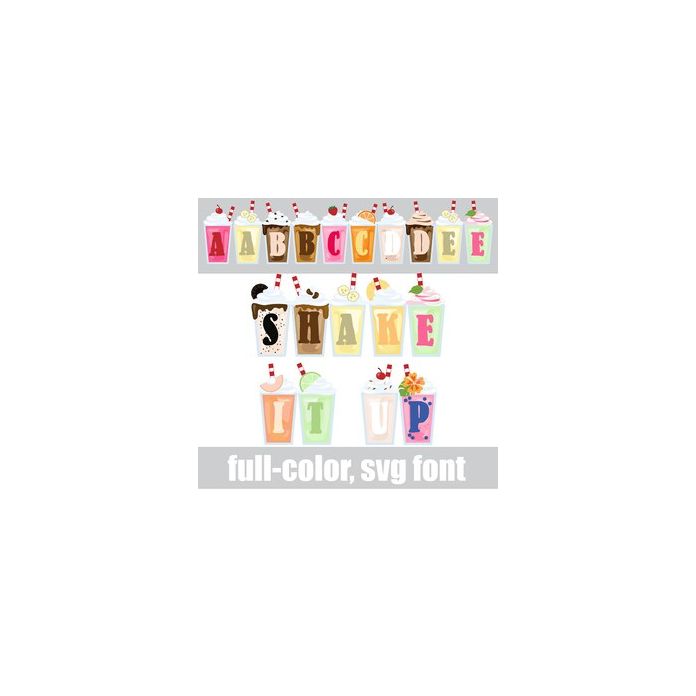
This full-color font features milkshakes with lettering. There is an alt case w/ additional colors you can access through your system or Silhouette's glyph map.